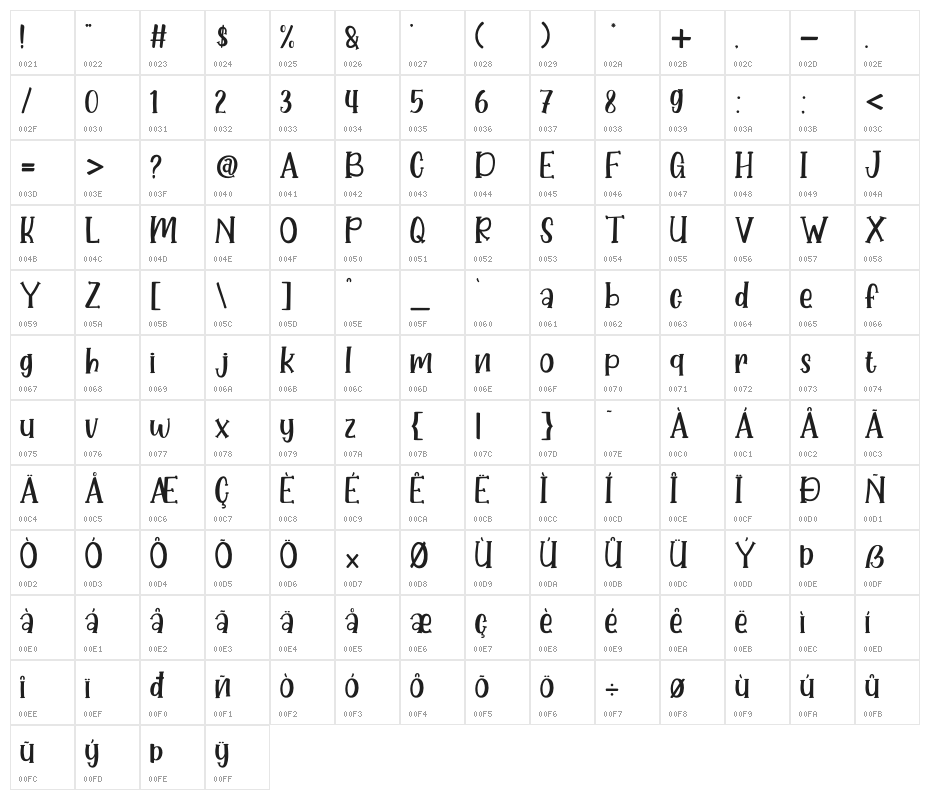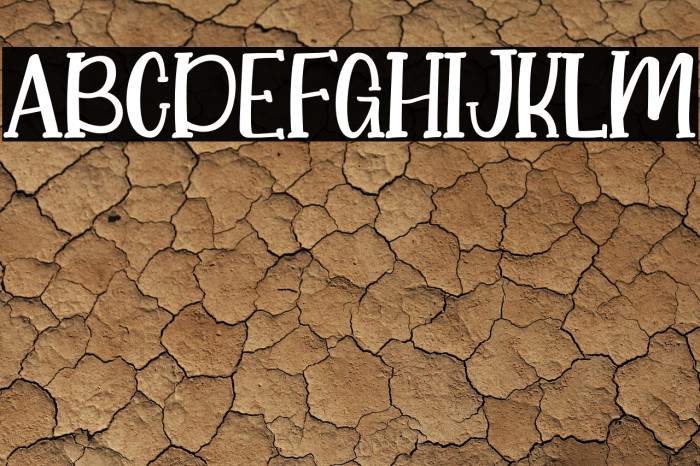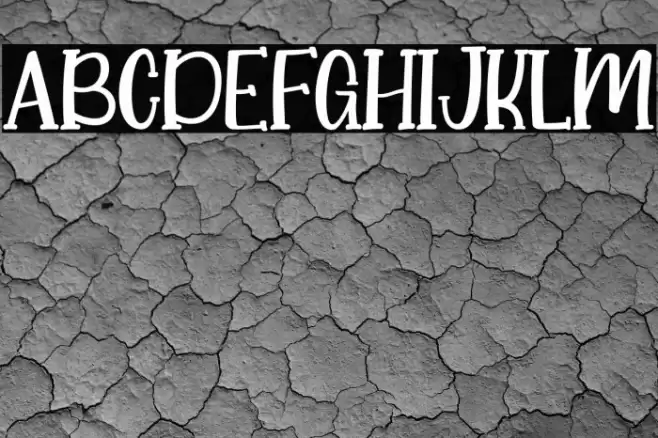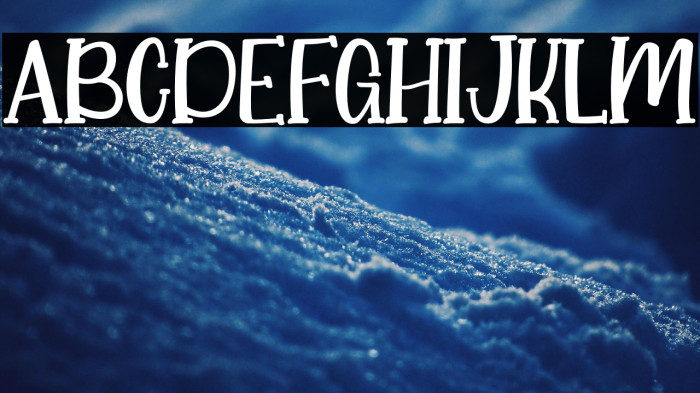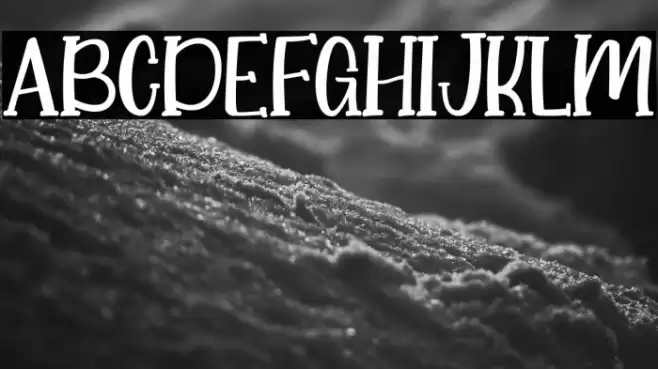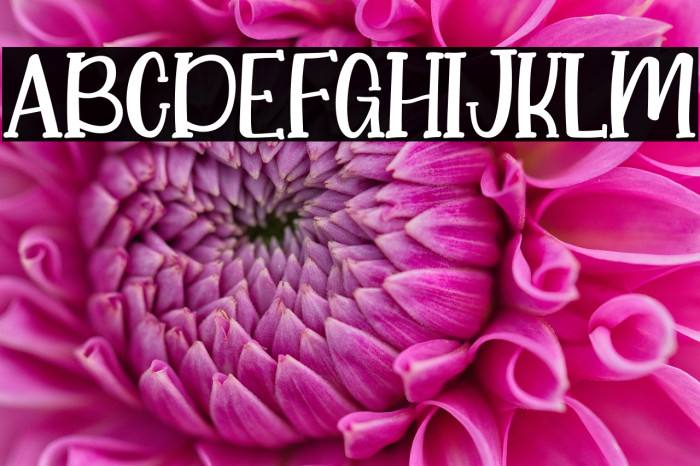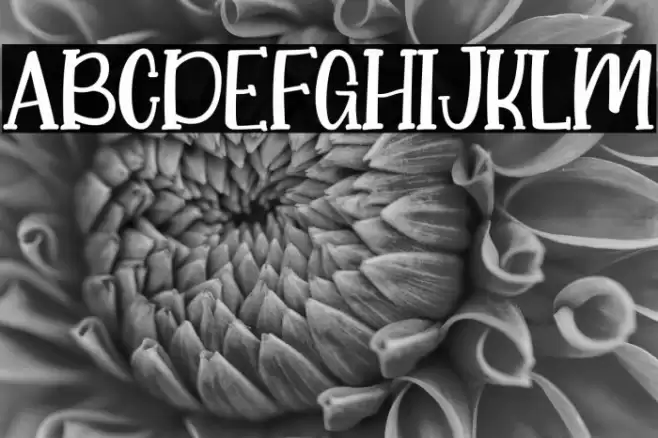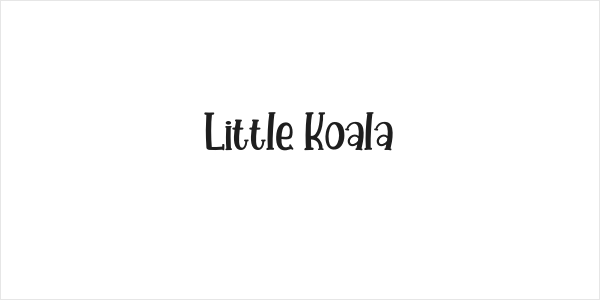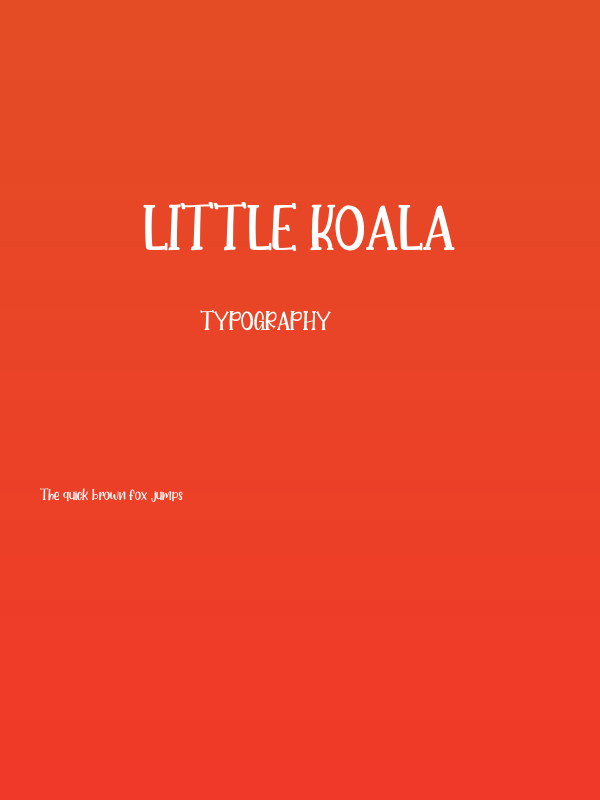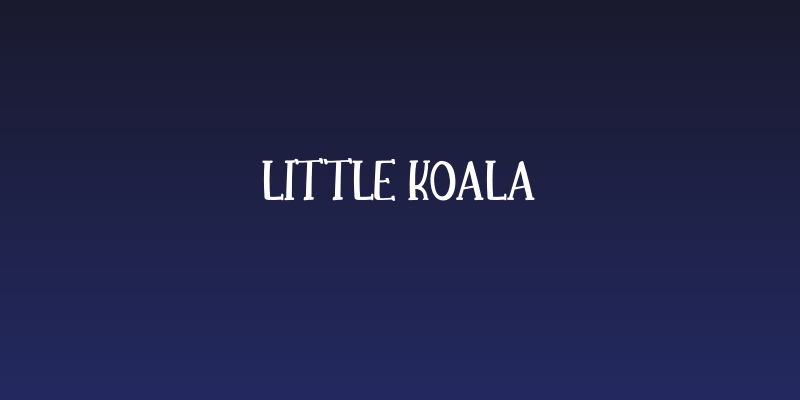
Little Koala Font
Little Koala Description
This playful and whimsical font features a handwritten style with a casual and friendly appearance. The letters are slightly irregular, adding a touch of charm and personality. The uppercase characters are bold and prominent, while the lowercase letters maintain a consistent flow with gentle curves and rounded edges. The numbers are clear and easily readable, complementing the overall style. Special characters are creatively designed, maintaining the playful aesthetic. This font is perfect for projects that require a fun and approachable feel.
| Use Case | Headlines, Logos, Casual text |
| Proposed Projects | Ideal for children's books, playful branding, greeting cards, and casual invitations. |